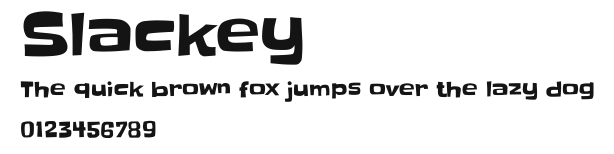
• Font Name: Slackey
• Full Font Name: Slackey
• Designer: Squid
• Manufacturer: Font Diner, Inc DBA Sideshow
About Slackey.ttf
Slackey.ttf is a modern, elegant sans-serif font designed for ultimate readability and visual harmony. Perfect for branding, headlines, web design, and print materials.